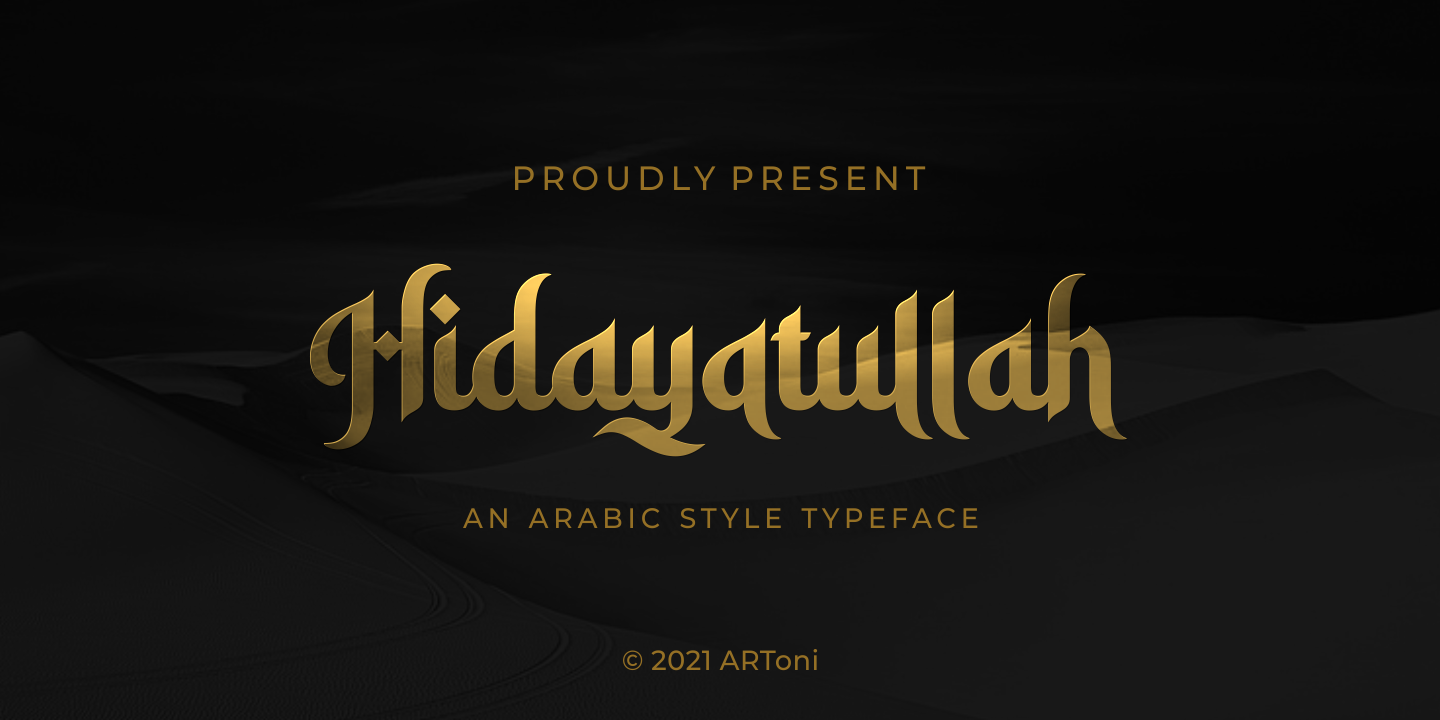
Hidayatullah Font is ideal for Islamic educational materials, mosque communications, religious ceremony programs, Islamic cultural centers, spiritual guidance publications, Islamic calligraphy workshops, religious book covers, interfaith dialogue materials, Islamic heritage exhibitions, and devotional prayer books.
What makes Hidayatullah Font exciting is its spiritual elegance and divine guidance that embodies the essence of Islamic typography with sacred reverence and cultural authenticity. This distinguished typeface captures the spirit of divine guidance with its graceful character forms and spiritually inspired proportions that evoke illuminated Quranic manuscripts, peaceful mosque architecture, and the kind of spiritual serenity that comes from seeking divine guidance and wisdom. The font's sacred character creates an immediate connection to Islamic tradition and the profound spiritual journey of seeking enlightenment.
Hidayatullah Font family includes regular weight with spiritually crafted character designs featuring Islamic-inspired proportions and sacred styling. The typeface maintains exceptional readability while showcasing its distinctive spiritual personality through reverently designed letterforms that reflect the beauty and wisdom of Islamic calligraphic traditions while serving contemporary religious communication needs.
Religious institutions consistently select Hidayatullah Font Free Download for projects requiring authentic Islamic appeal and spiritual credibility. This remarkable typeface brings the dignity of Islamic tradition to modern communications, combining sacred aesthetics with practical functionality to create meaningful spiritual experiences. The reverently designed characters ensure respectful representation across all applications, making it essential for Islamic organizations, educational publishers, and any institution seeking to communicate the spiritual wisdom and cultural authenticity that honors Islamic traditions while serving contemporary Muslim communities worldwide through Hidayatullah Font Free Download.